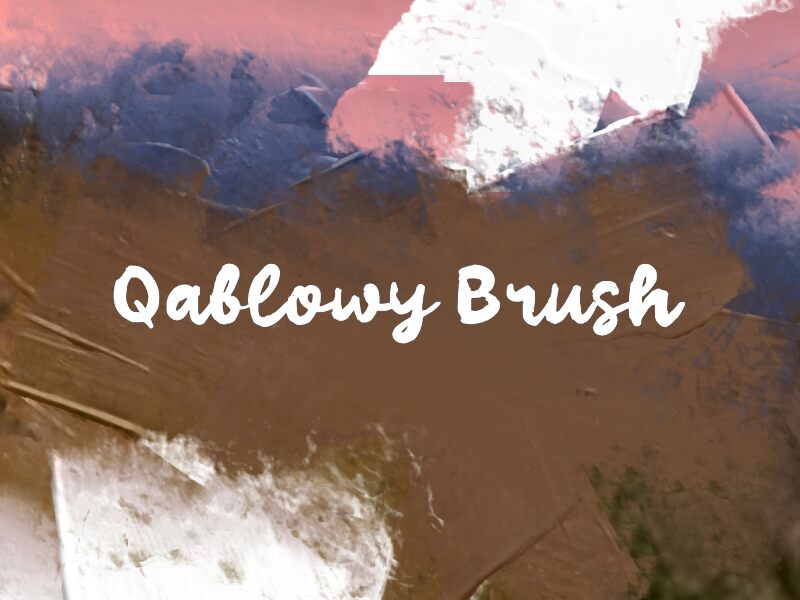
Qablowy Brush font by wep is a free brush font that captures an artistic and expressive aesthetic. Embodying an informal elegance with a contemporary twist, this typeface brings an energetic flow that resonates through its every stroke. This modern brush style is designed to convey casual moods and artistic impressions, making it suitable for a variety of creative design projects.
This font is perfect for branding, packaging design, posters, invitation cards, banners, and social media graphics. Its expressive character brings life to book covers, magazines, and editorial layouts, while also being suitable for websites and app design. Try using it for logotypes, headlines, signage, or any other project where a touch of authenticity is desired.
Qablowy Brush is a stunning free font that captures the fluidity of brush strokes, making it perfect for various design projects. Whether you're working on invitations, social media graphics, or branding, this font adds a unique and artistic touch.